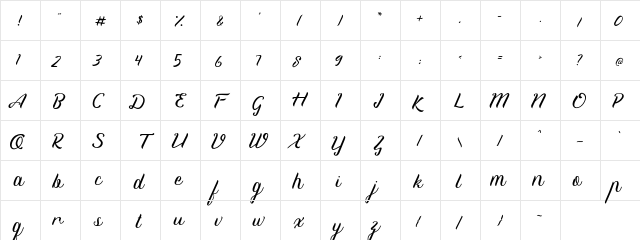
Premside Reguler
Design Context for Premside Typeface
Premside is a composed and adaptable typeface that performs quietly and consistently across a wide range of design contexts.
Pro Tip: Use Premside in both headline and body roles to test its range before committing to a single application.